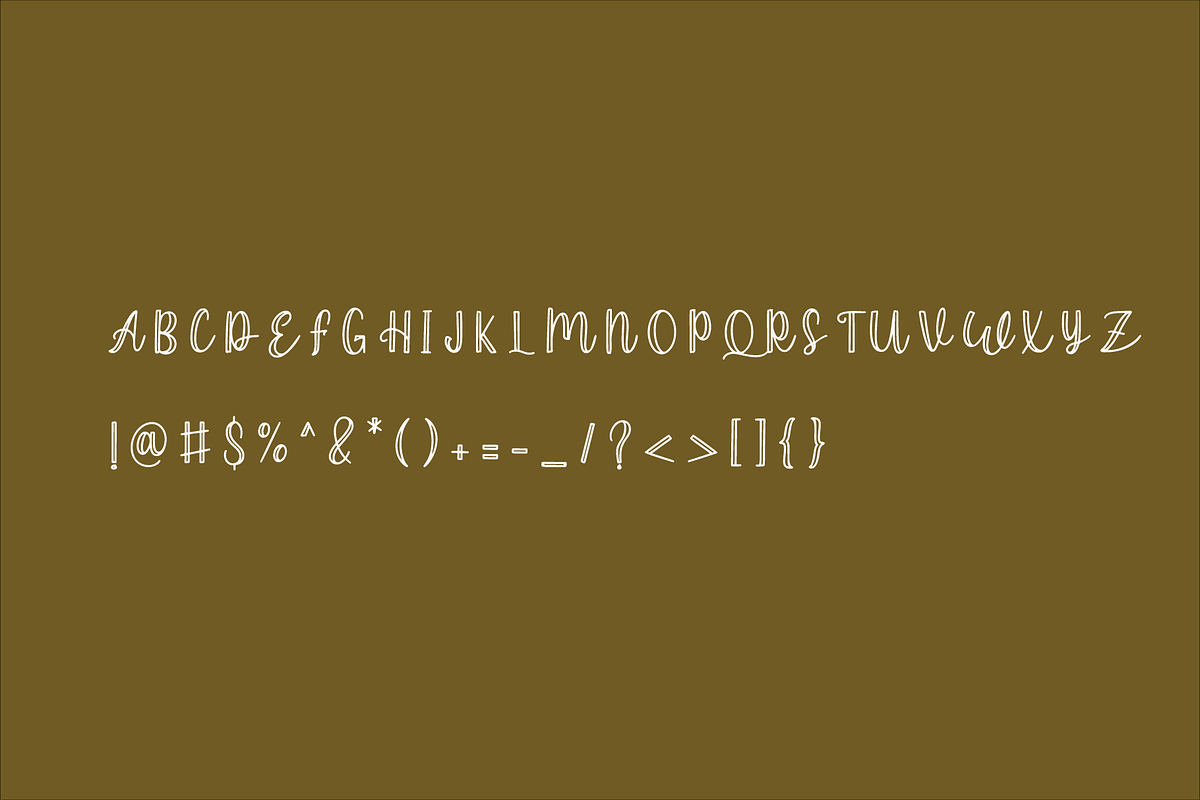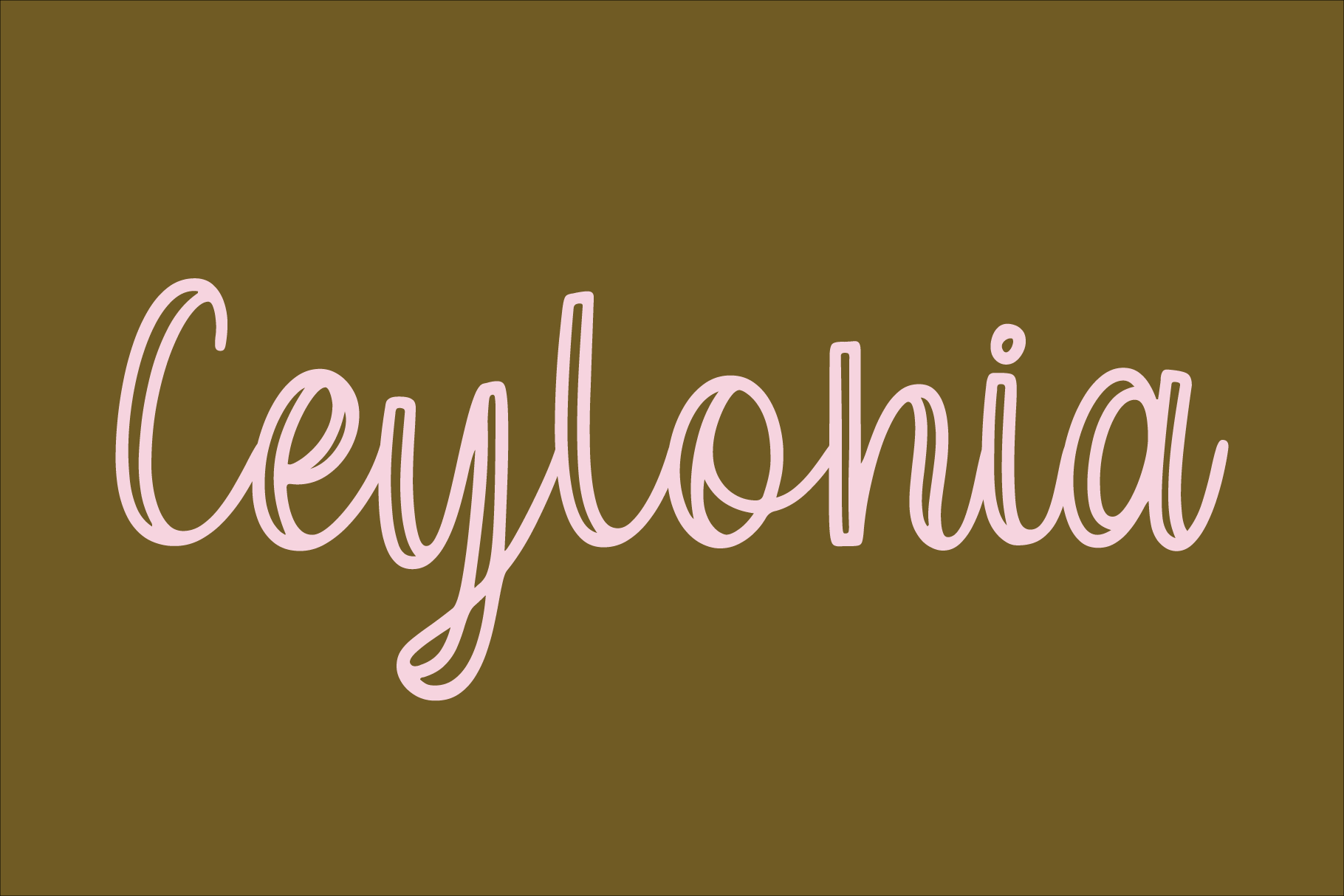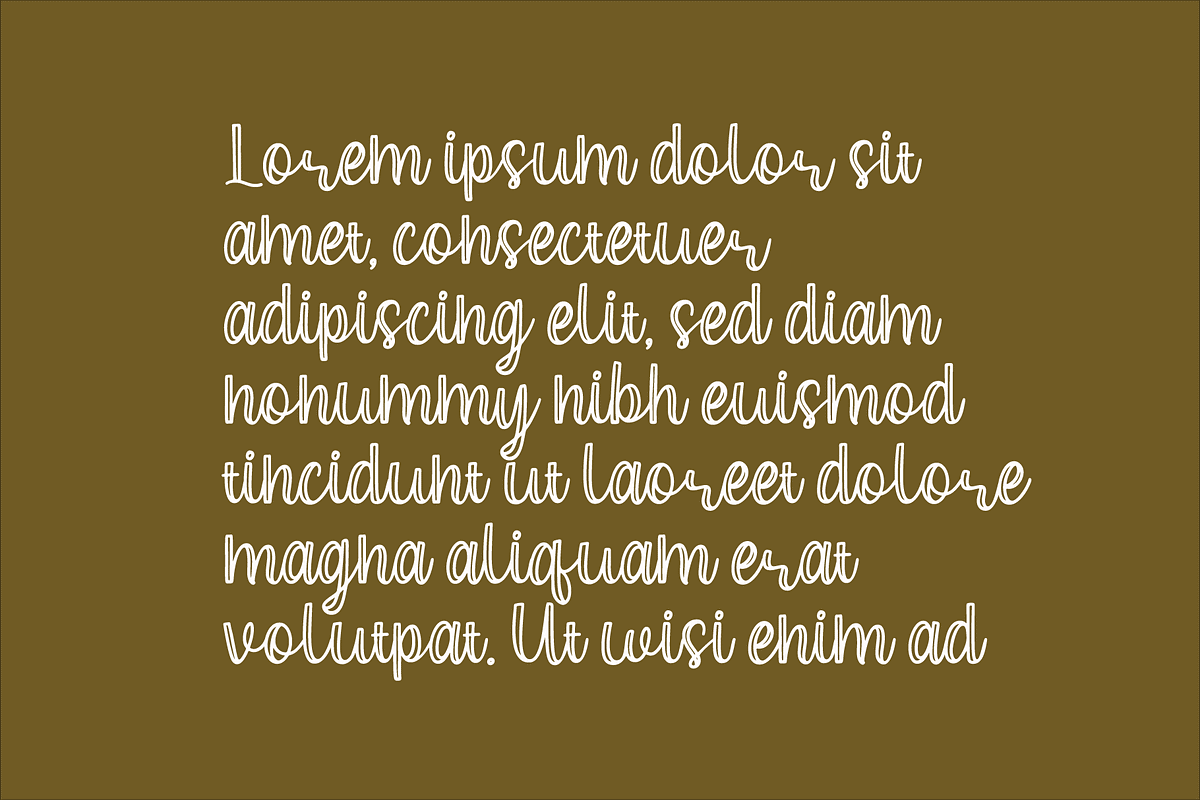
Ceylonia font
Ceylonia is lovely display font inspired by outline lettering, including 6 stylistic set that perfect for any combination for your design.
More than 450 glyph